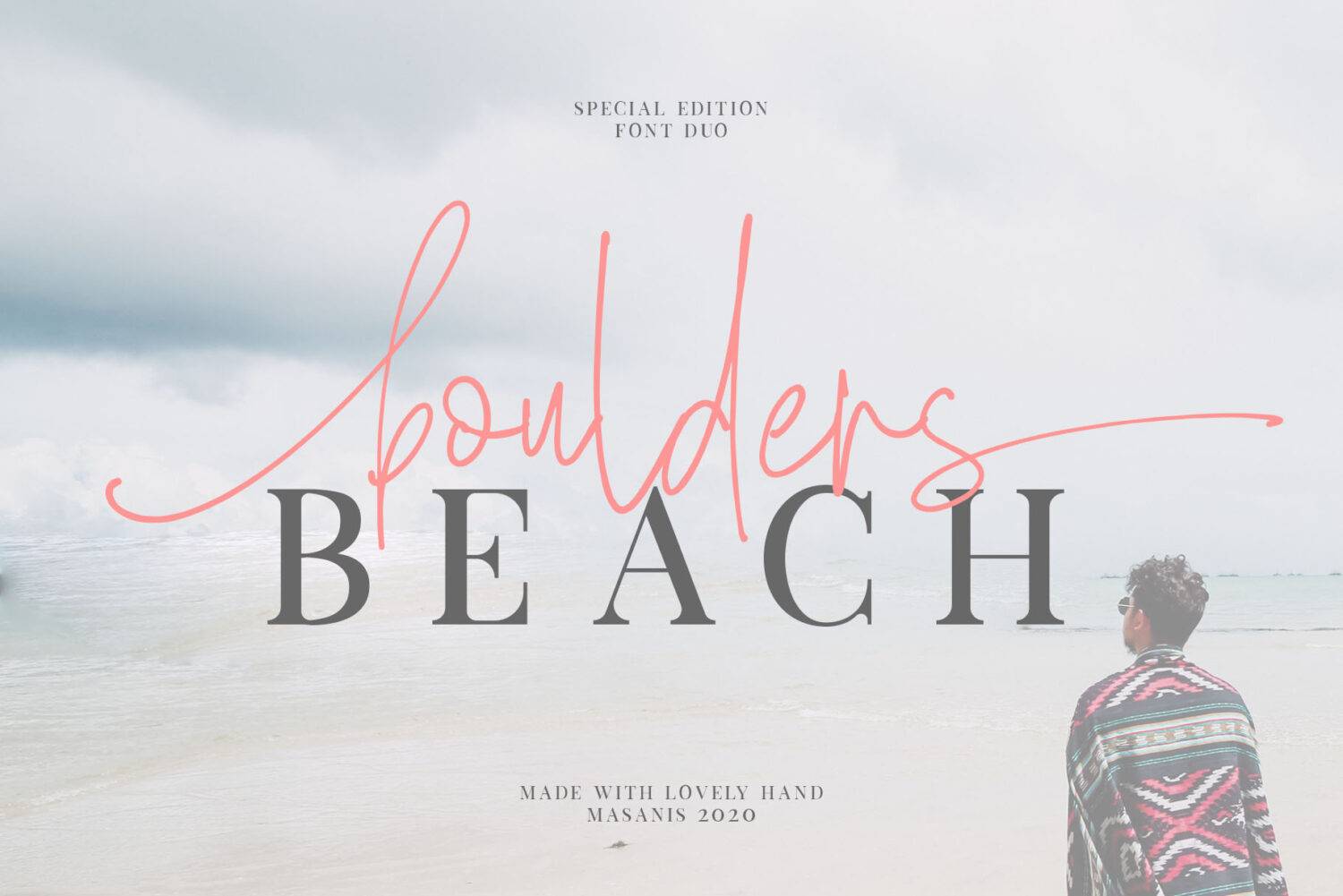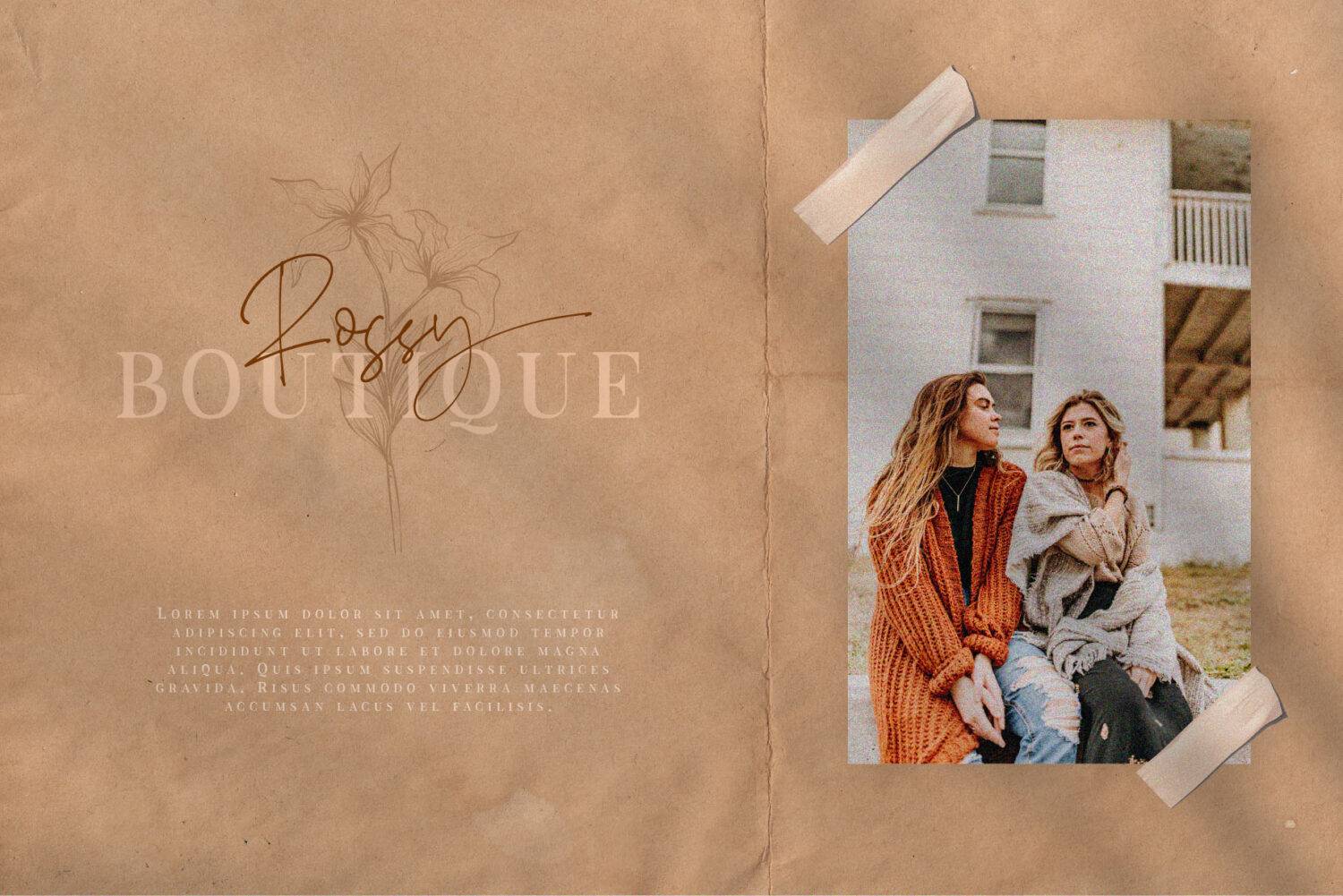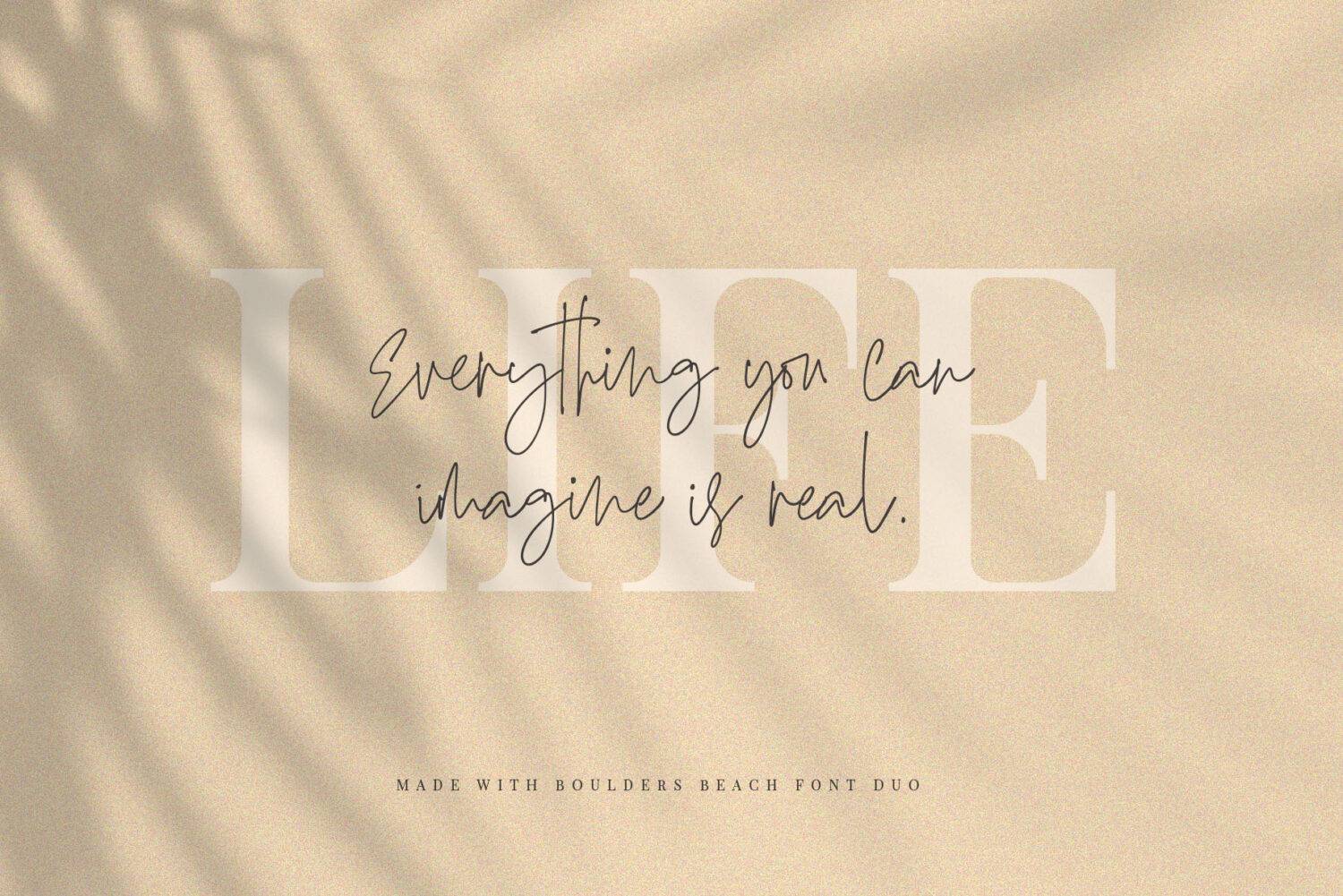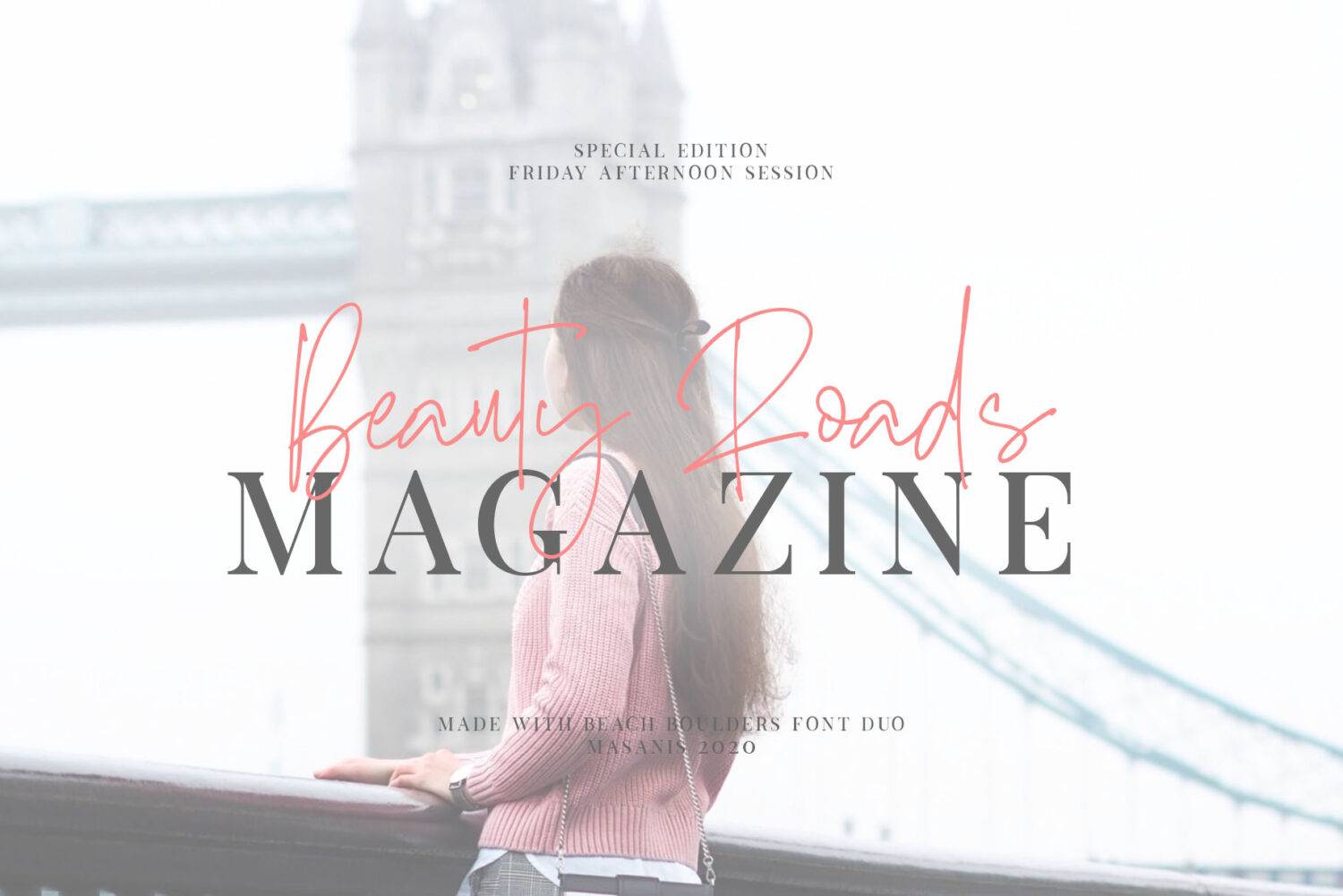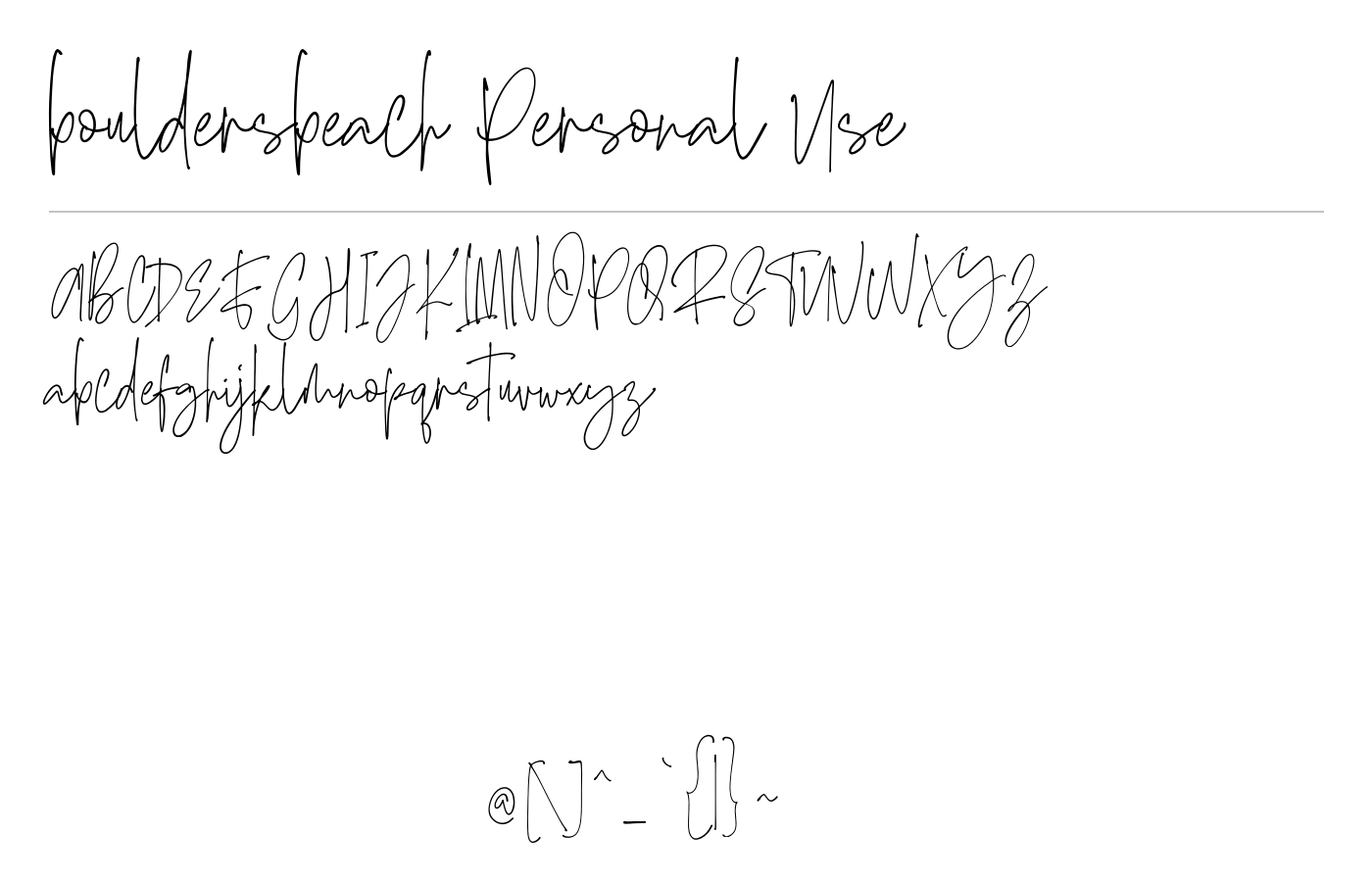
Boulders Beach Font is a delicate, thin script typeface with a hand-drawn, casual feel. Its tall, narrow letterforms and irregular strokes give it a fresh, personal touch, making it perfect for creative projects, invitations, and lifestyle branding that seek a natural, intimate vibe. This font works best in designs where a light, airy handwriting style adds authenticity and charm.
Boulders Beach Font
About Boulders Beach Font